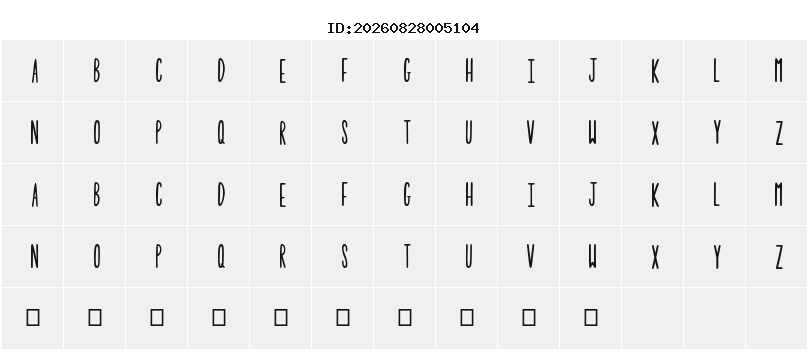
• Font Name: Tulip
• Full Font Name: Tulip
• PostScript Name: Tulip
• Character Count: 53
About Tulip.otf
Tulip.otf is a modern, elegant sans-serif font designed for ultimate readability and visual harmony. Perfect for branding, headlines, web design, and print materials.